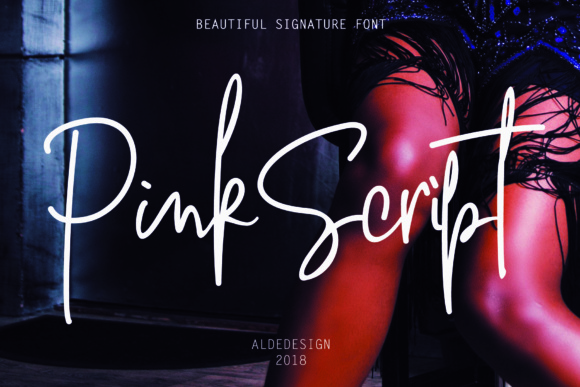
Get ready to embrace the beauty of handwritten elegance with our Pink Script font, an enchanting creation by aldedesign that captures the essence of natural penmanship. This remarkable script font is not just a collection of letters; it's an invitation to express your individuality and add a touch of personal charm to your digital creations.
Step into a world where words dance with grace and fluidity, where every letter is a stroke of art. The Pink Script font is a symphony of curves and flourishes, capturing the essence of handwritten notes, love letters, and heartfelt messages. With its intricate ligatures and a full set of lowercase alternates, this font breathes life into your words, making them leap off the screen with a sense of authenticity and charm.
Unleash your creativity and let your imagination run wild with the Pink Script font. Whether you're crafting heartfelt invitations, designing eye-catching logos, or creating personalized cards, this font will transform your words into works of art. Its versatility knows no bounds, making it the perfect choice for a wide range of projects, from personal to professional.
Add a touch of whimsy and elegance to your social media posts, elevate your blog design, or create stunning branding materials that leave a lasting impression. The Pink Script font is your secret weapon to captivate and enchant your audience, leaving them with a sense of delight and wonder.